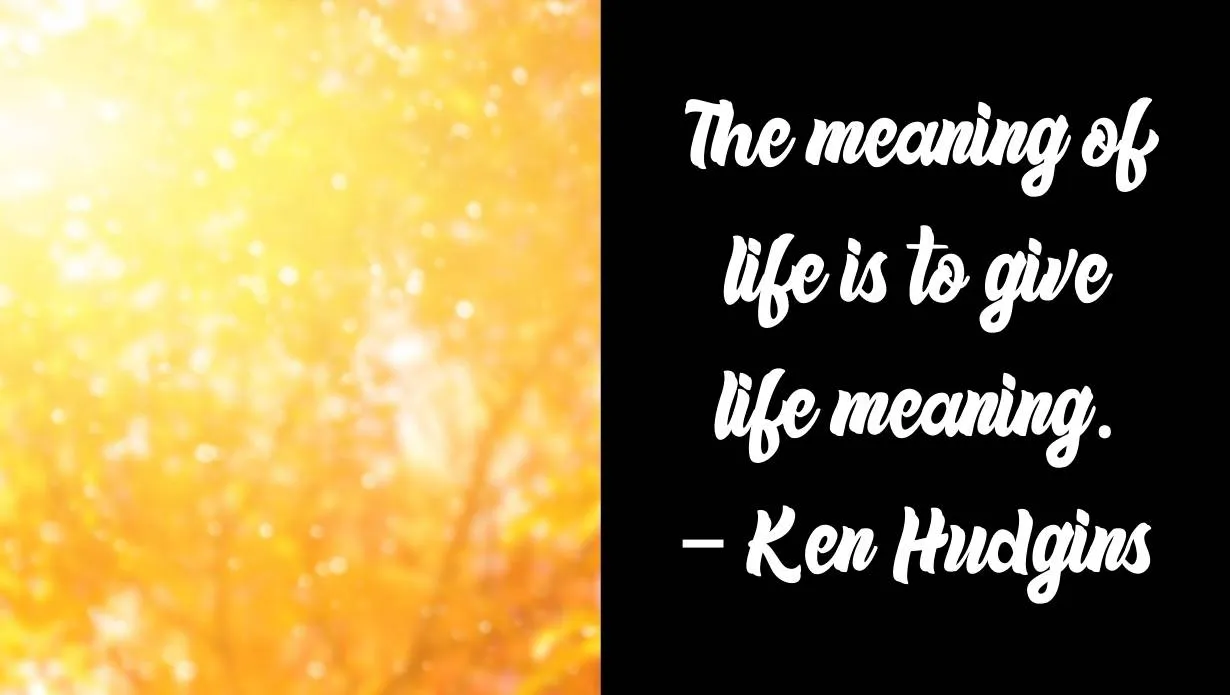
Here, we are consulting on a very precious and tremendous font family named Beneth font. The main designer of this font family was IlhamSyah Vutra. It belongs to the Script typeface. It is well specified by the CSS and SVG.
It was released for the first time on 2 February 2009. This font family got an immense amount of popularity in a very short period.
It is being used by many fashion designers and industries for various purposes. This typeface has another similar morning glory font that has the same features as this one.
| Name | Beneth Font |
| Designer | IlhamSyah Vutra |